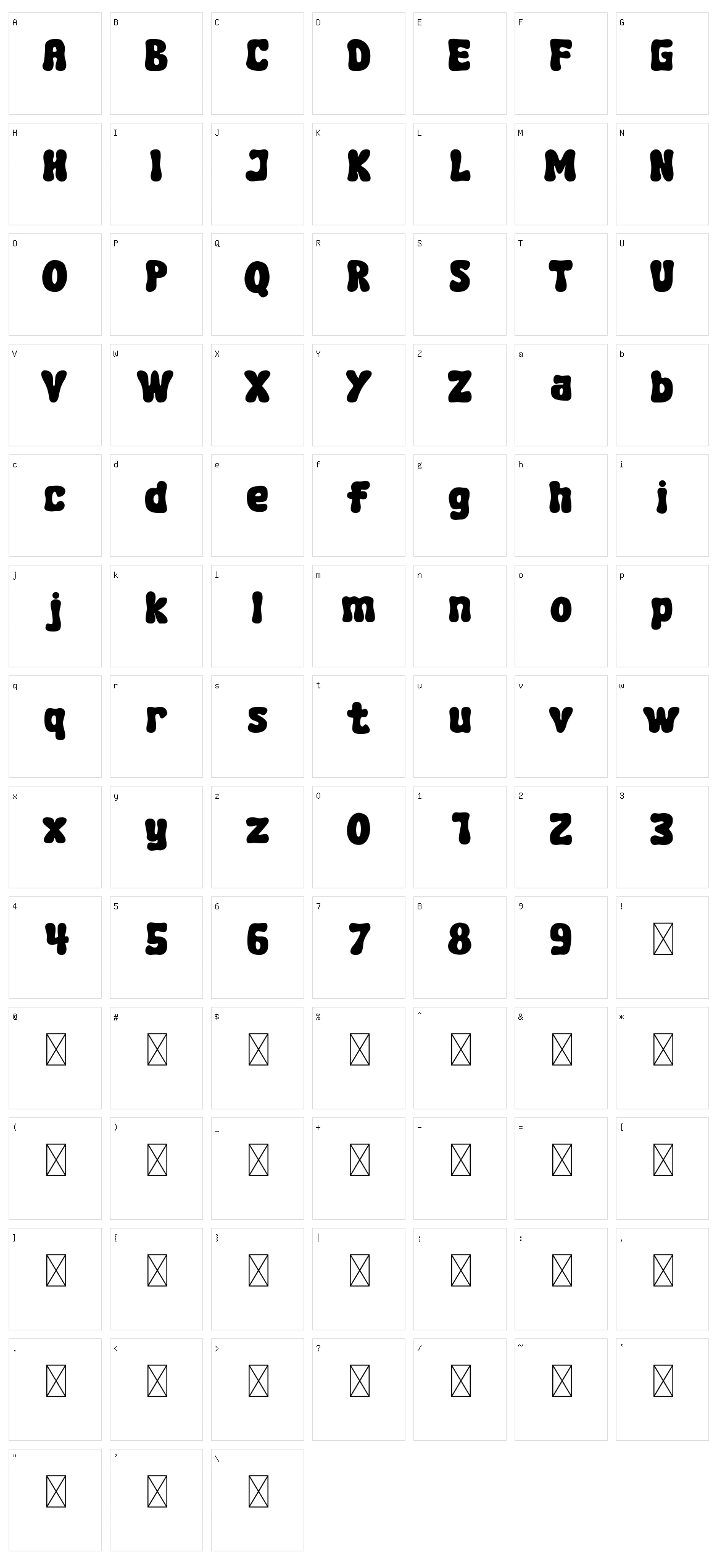
The free font Lucid Dream is carefully designed by Pinisiart, showcasing a thoughtful balance of creativity and usability and falls under the Cartoon font style. When you download the ZIP file, it contains only 11.51 KB of font files, making it lightweight and quick to download. Please review the license details below to understand permitted usage and distribution rights. If license information is not available, we recommend using this font for personal projects only or contacting the author directly for commercial usage permissions.